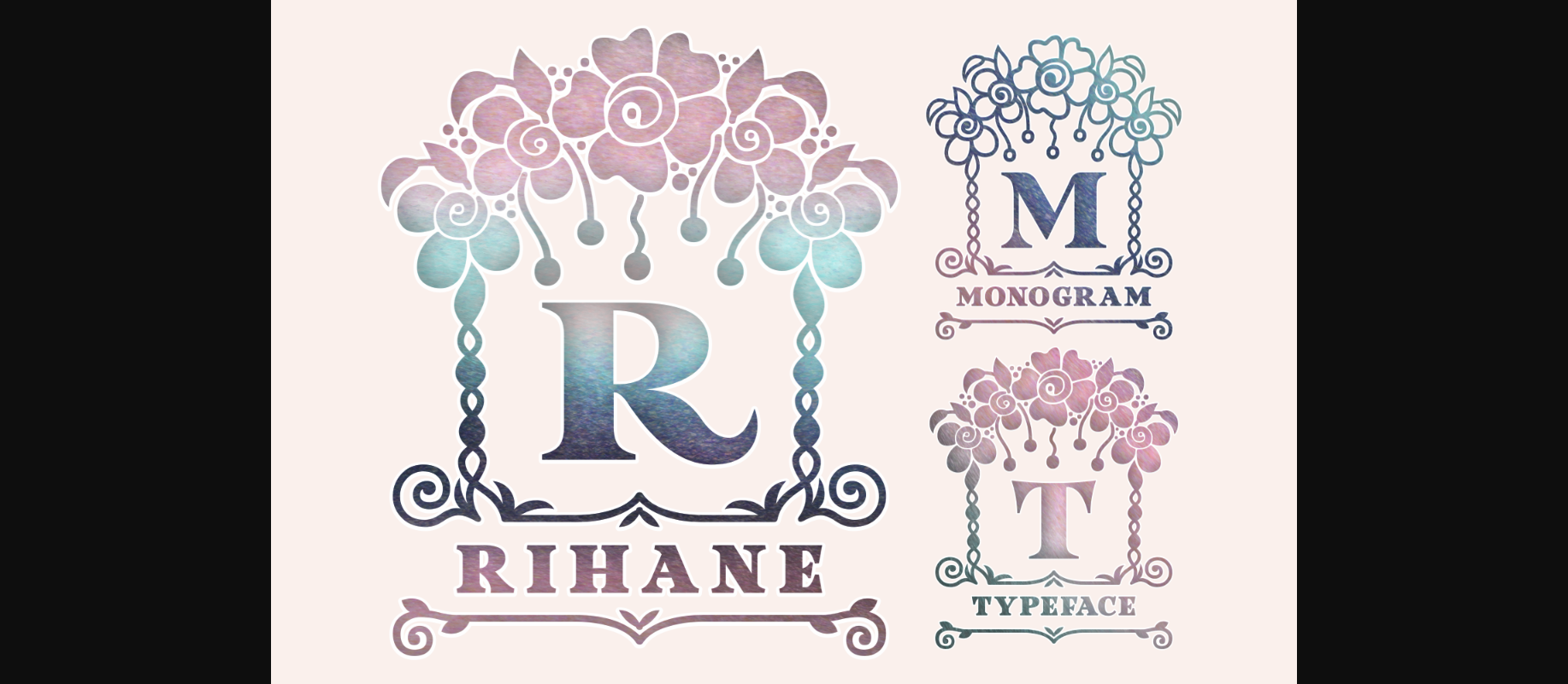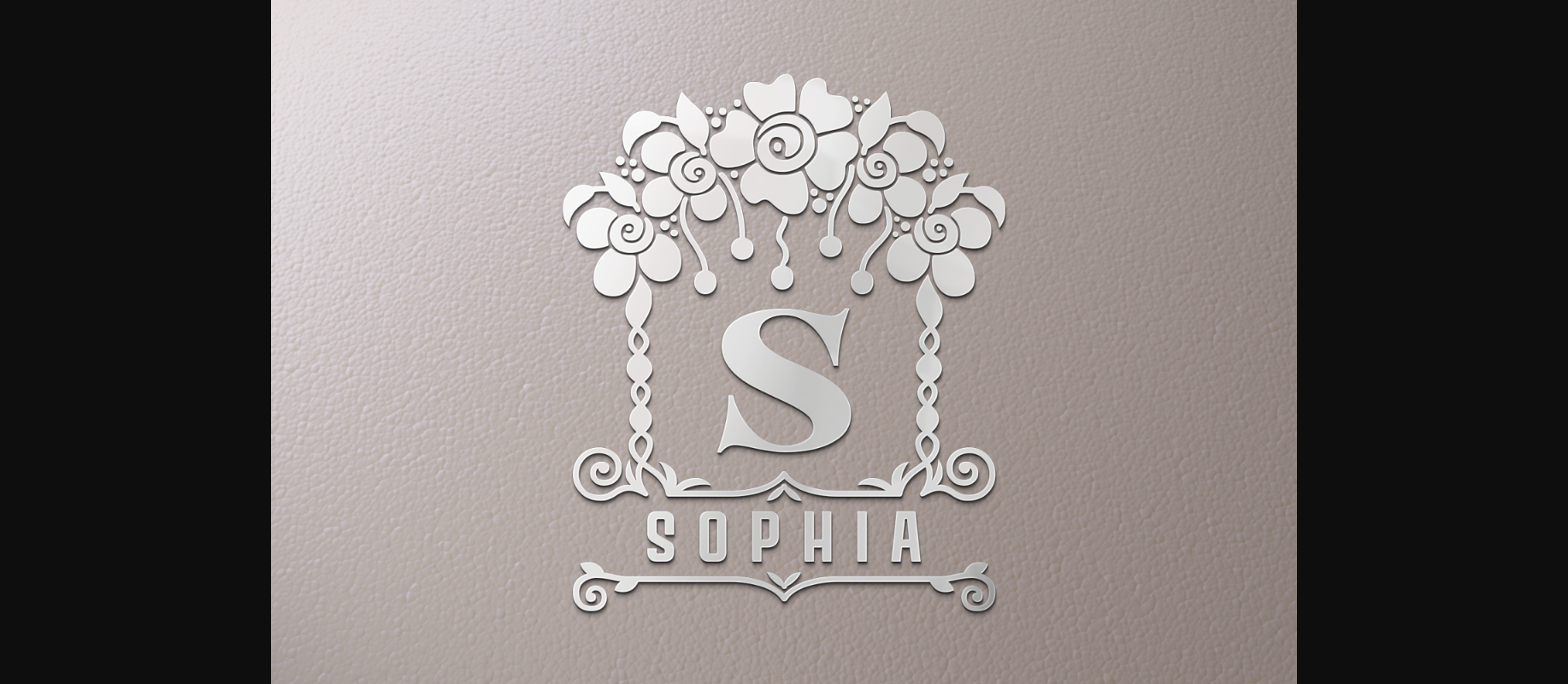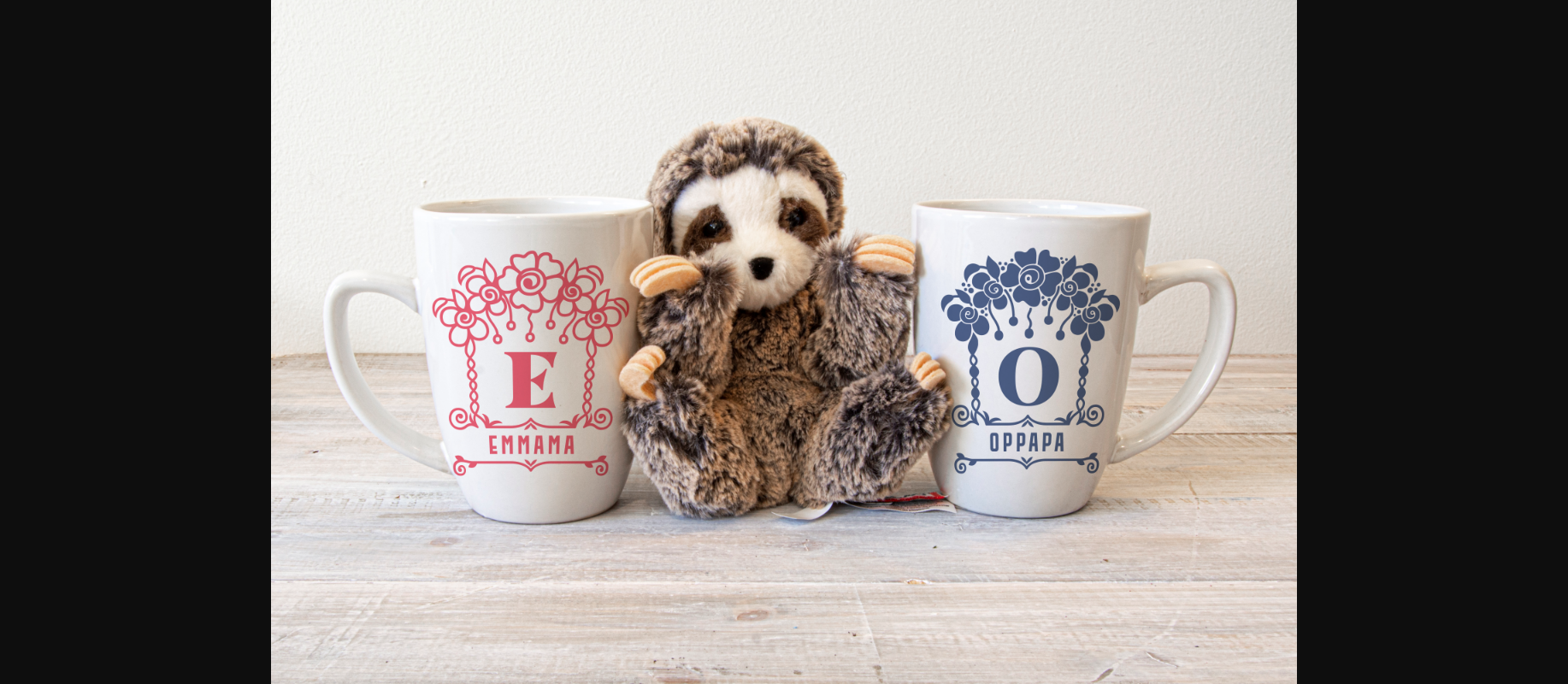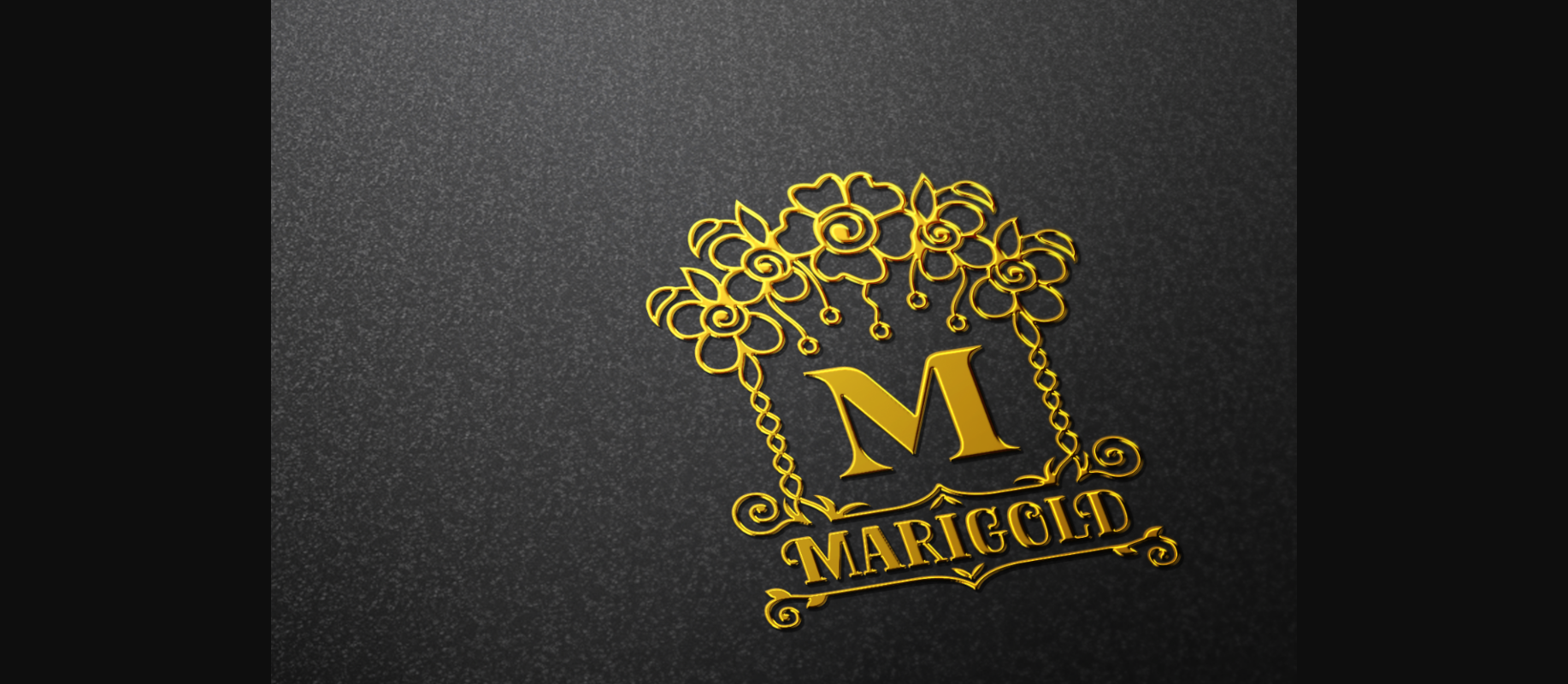
Rihane Font
About Rihane Font
Rihane is a sweet and friendly decorative font. Its natural and unique style makes it incredibly fitting for a large pool of designs. The only limit is your imagination!